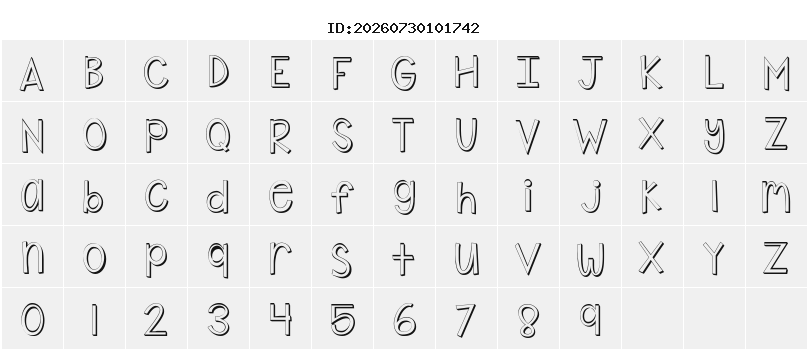
• Font Name: KG Shake it Off Popped
• Designer: Kimberly Geswein
About KG Shake it Off Popped.ttf
KG Shake it Off Popped.ttf is a modern, elegant sans-serif font designed for ultimate readability and visual harmony. Perfect for branding, headlines, web design, and print materials.